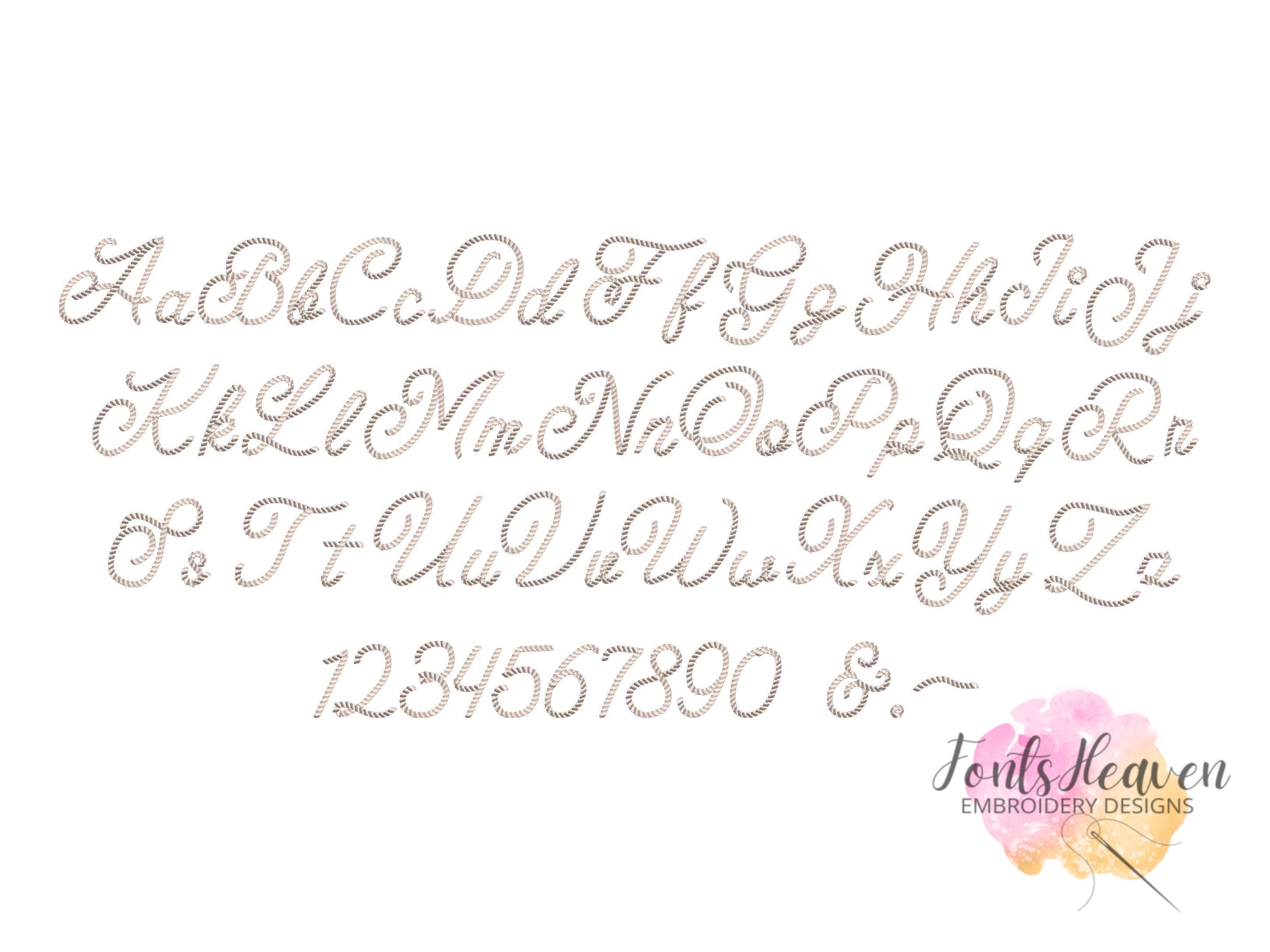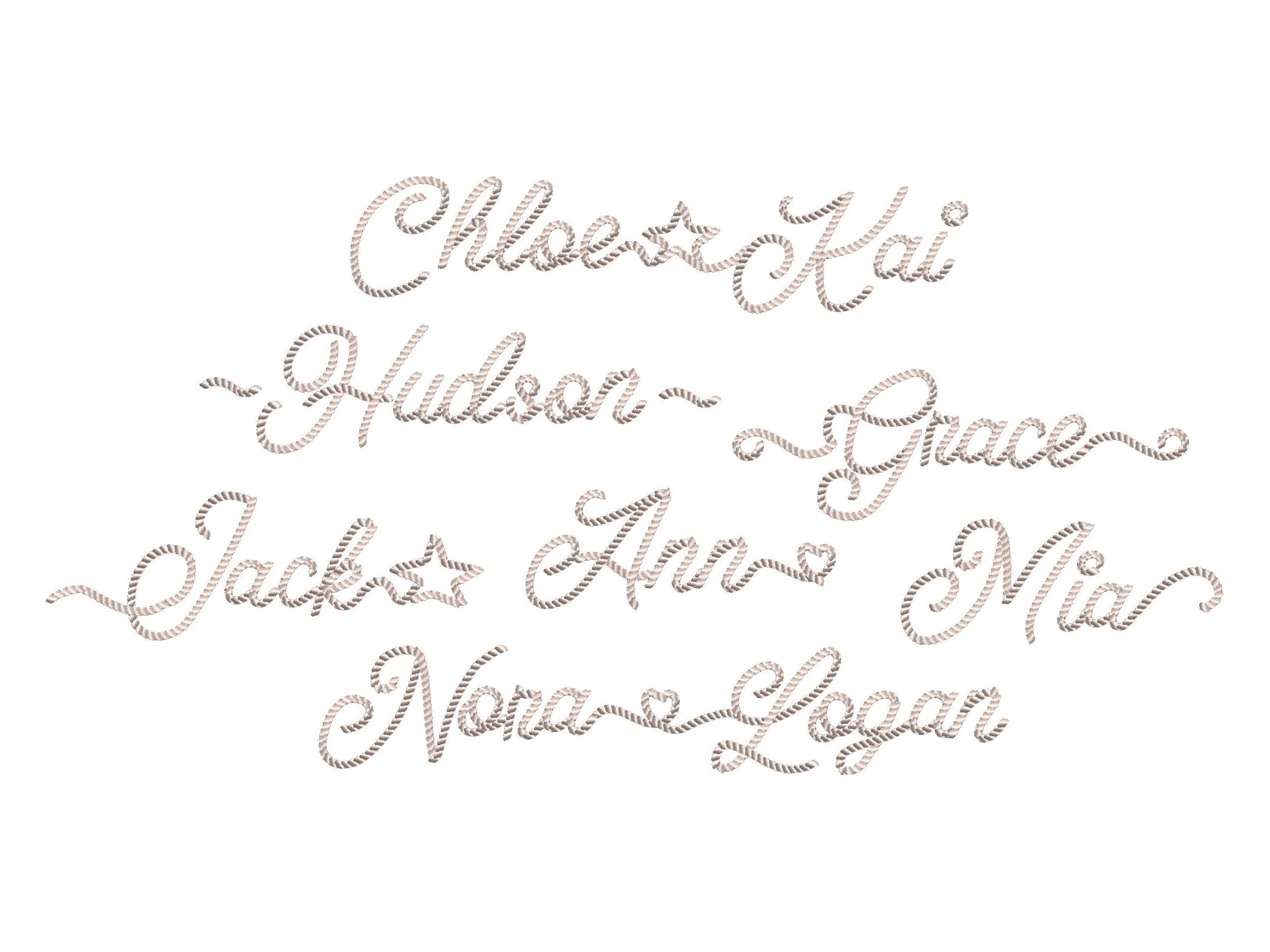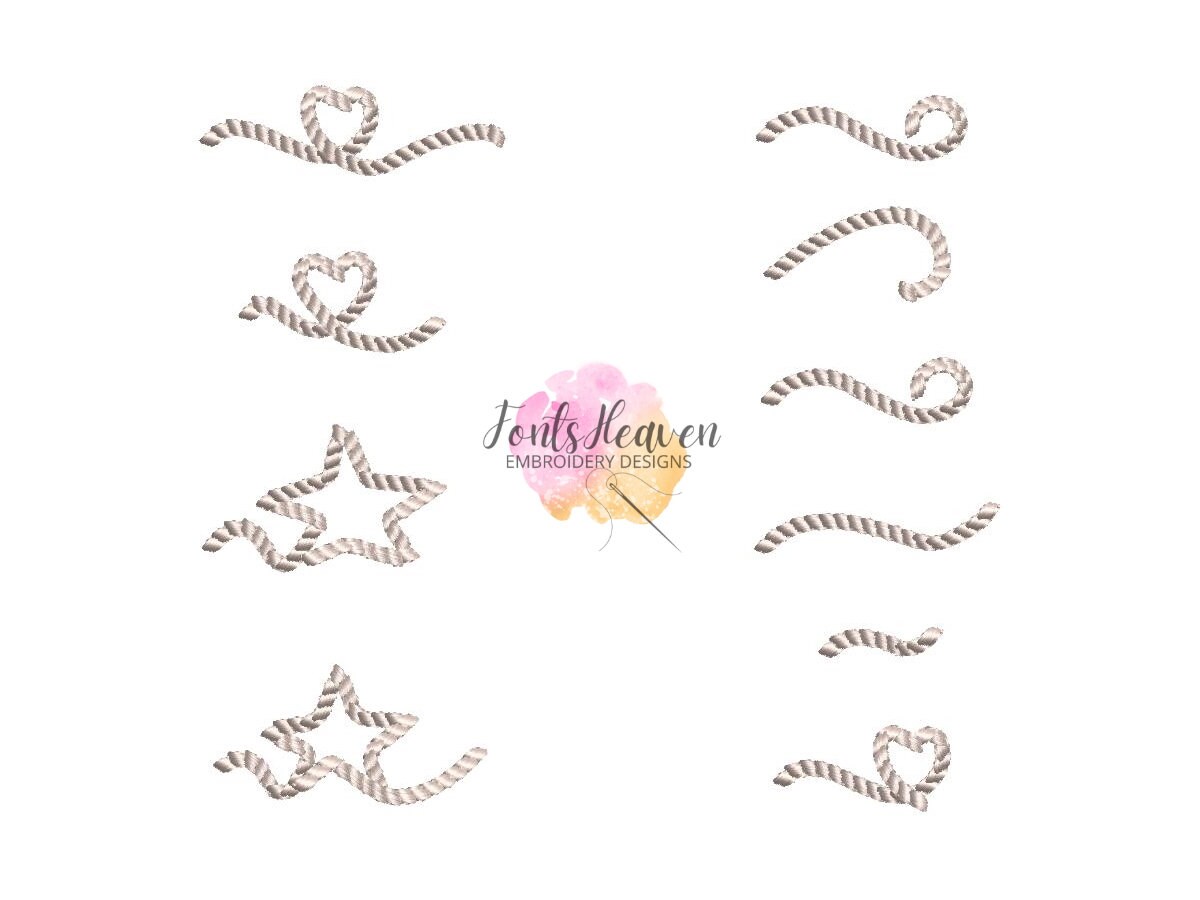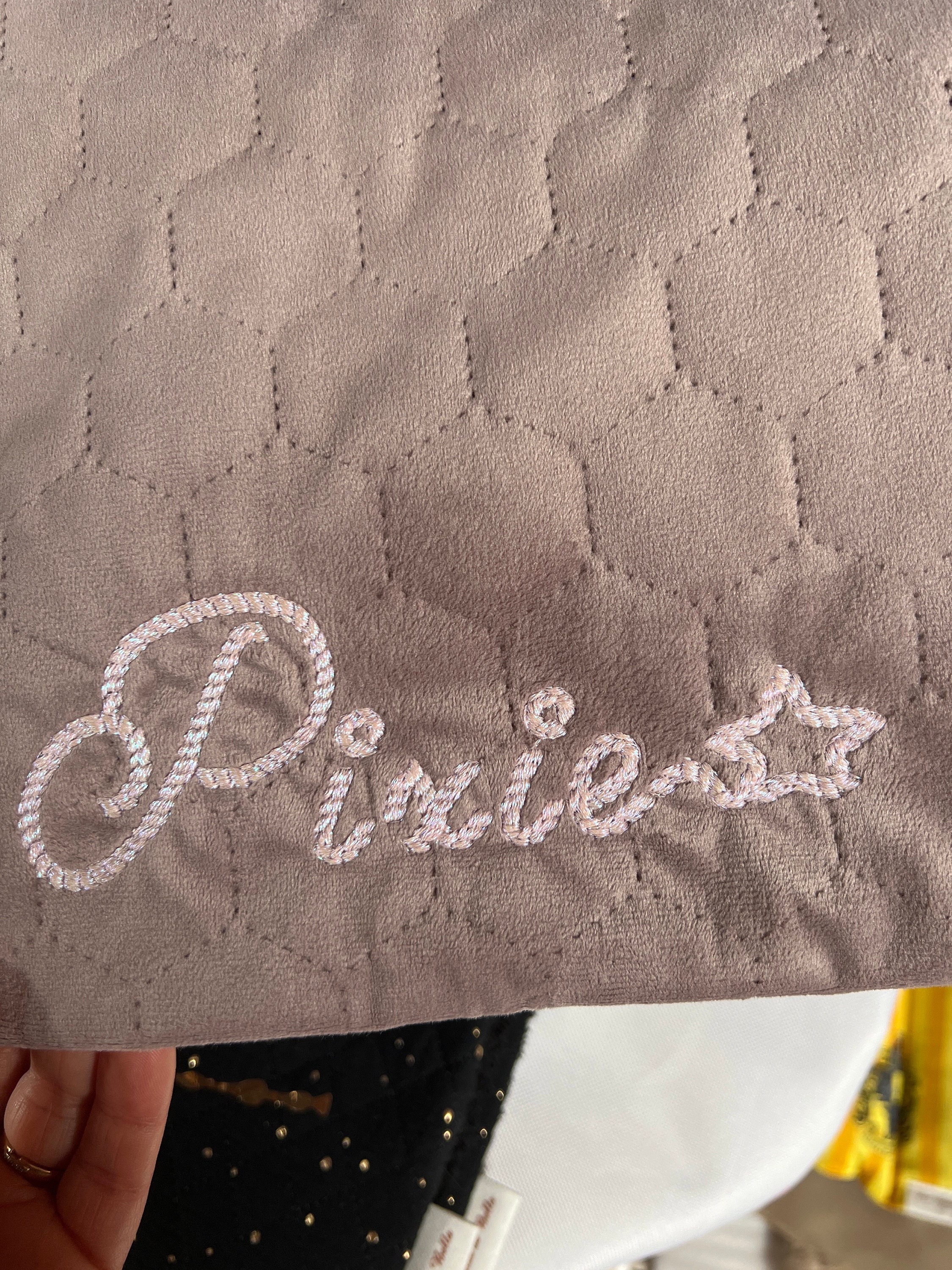
Modern rope nautical script handwritten cursive Font with Tails & Connections machine embroidery designs 1.7 up to 4 inches awesome name, BX
Uppercase and lowercase letters, numbers, punctuation & . -
10 types of tails/connections as shown in the images.